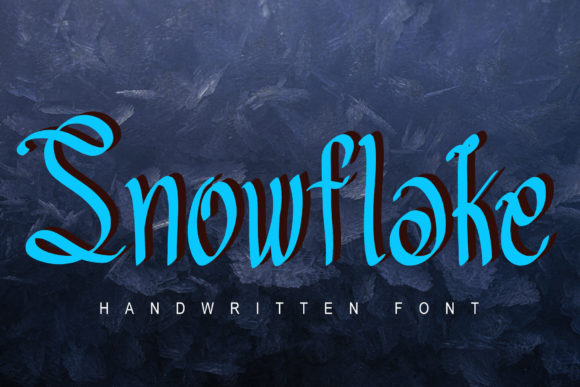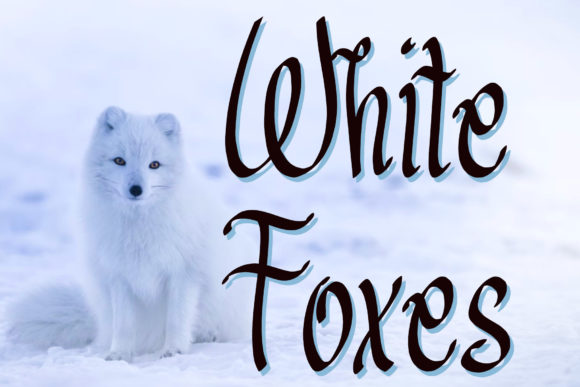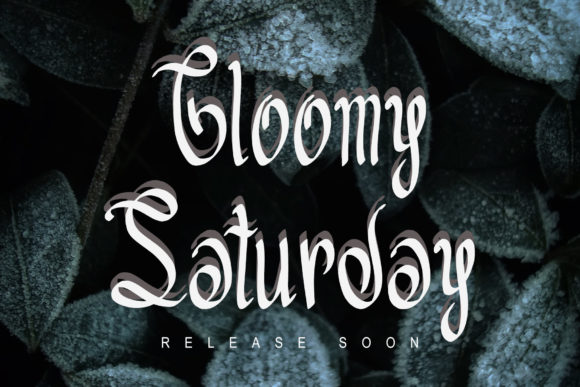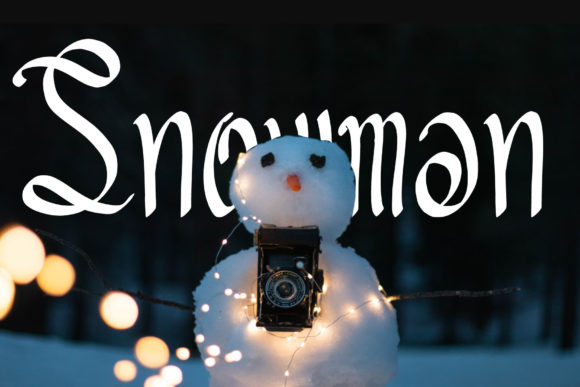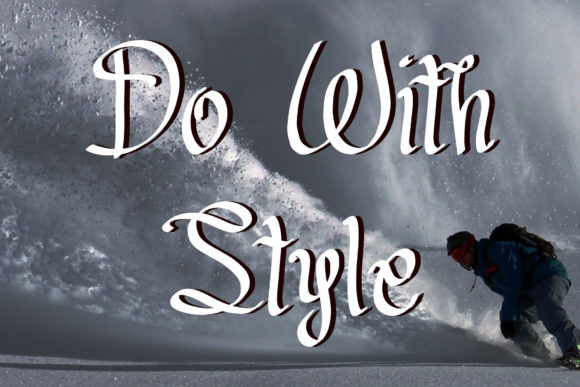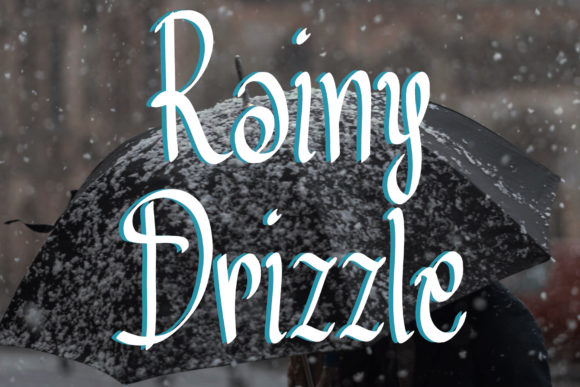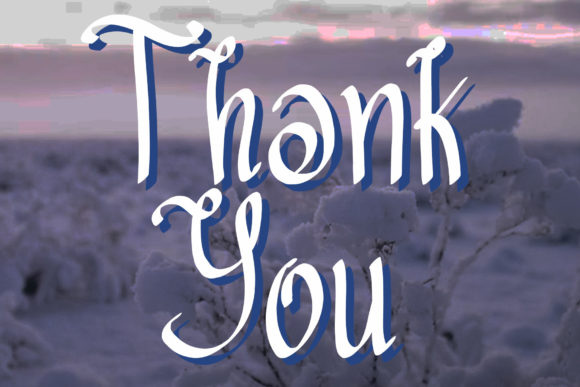
About Snowflake Font
Snowflake is an elegant and flowing handwritten font. It looks stunning on wedding invitations, thank you cards, quotes, greeting cards, logos, business cards, and any other design that needs a handwritten touch.